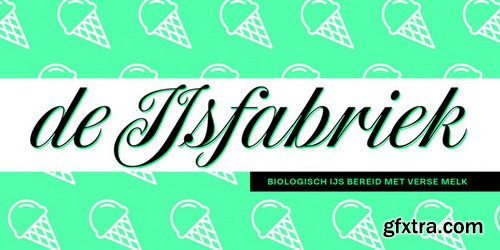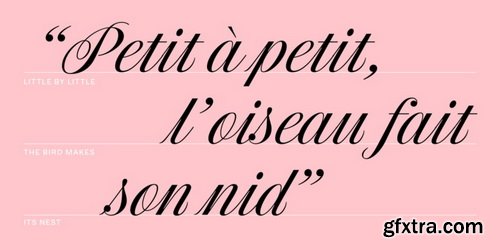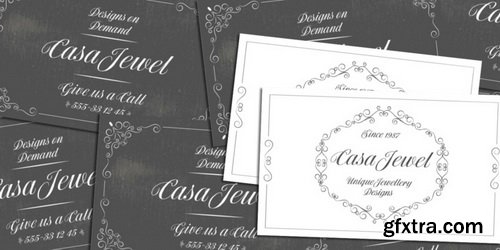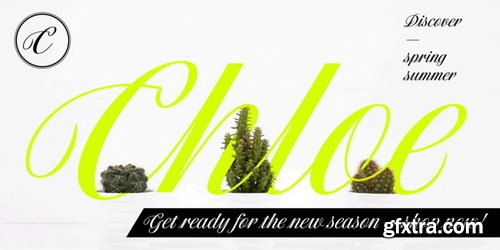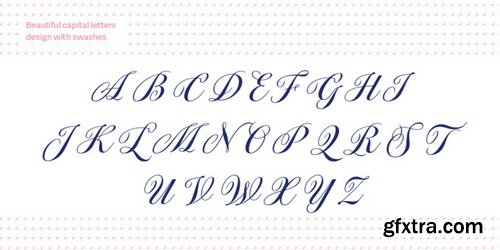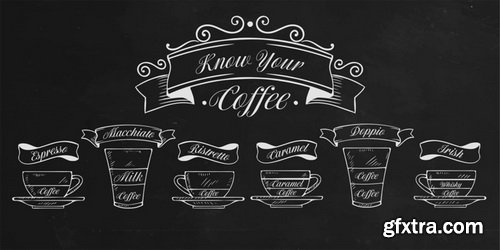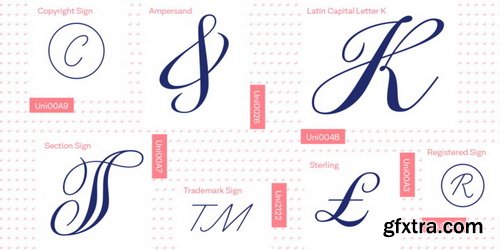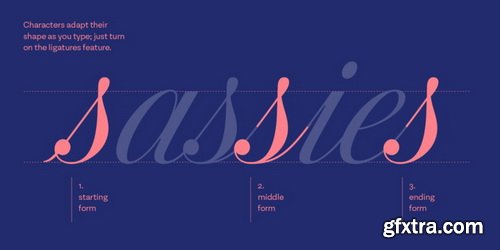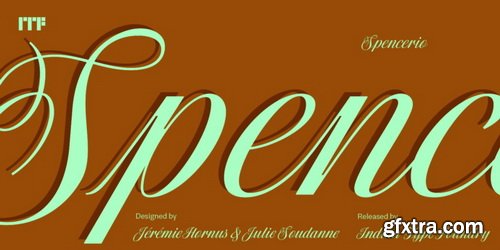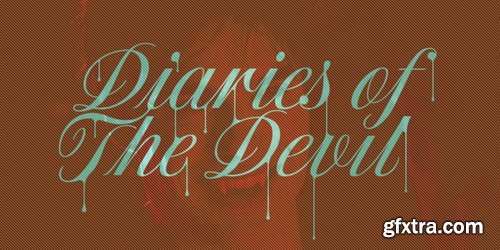
Spencerio’s letterforms are inspired by Spencerian-style calligraphy – which are usually written at a slope with a pointed pen. The natural state of each Spencerian stroke is a thin hairline; when the calligrapher wants to make a line thicker, she adds pressure to the nib. Sound easy? It takes years of practice for calligraphers to master the Spencerian style! Fortunately, designers can use this font instead. Spencerio helps make monogram design easy, and the font is a good selection for any application where a formal script is necessary, such as calling cards, diplomas, or wedding invitations. Spencerio’s character set offers 673 glyphs, including ligatures and alternates for initial and final letters.